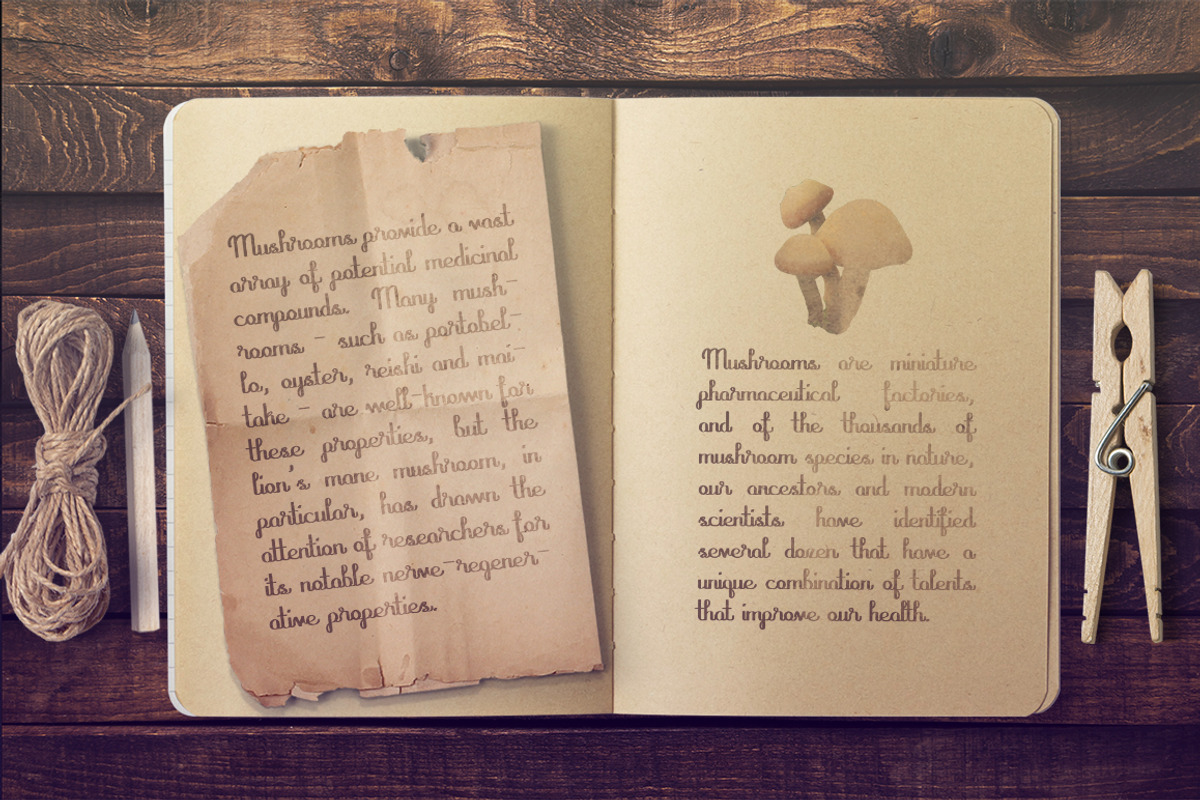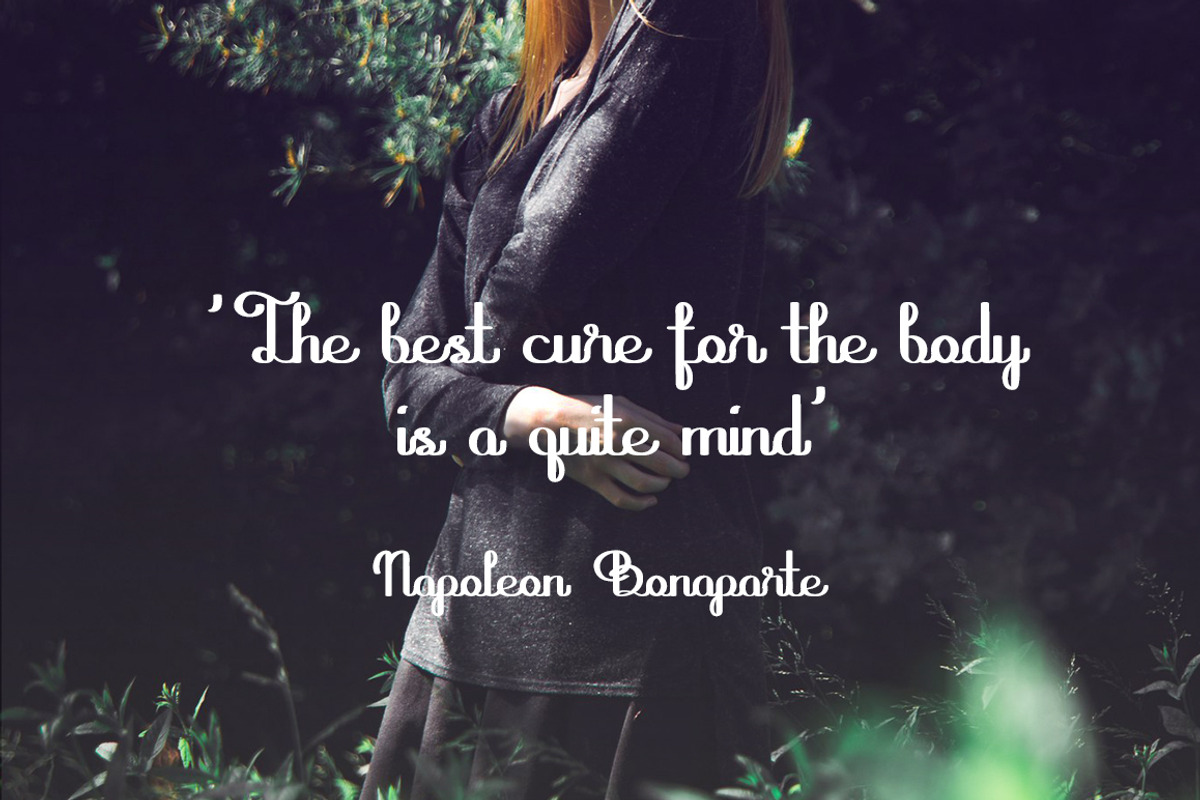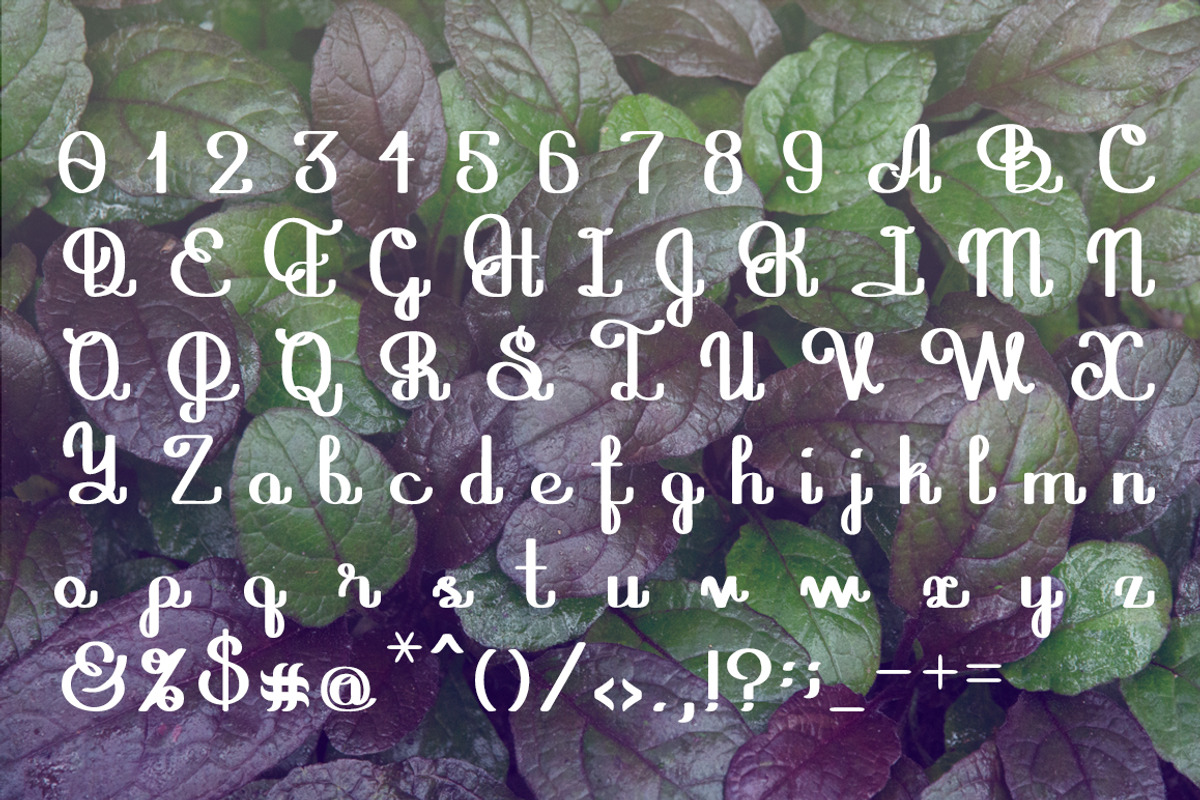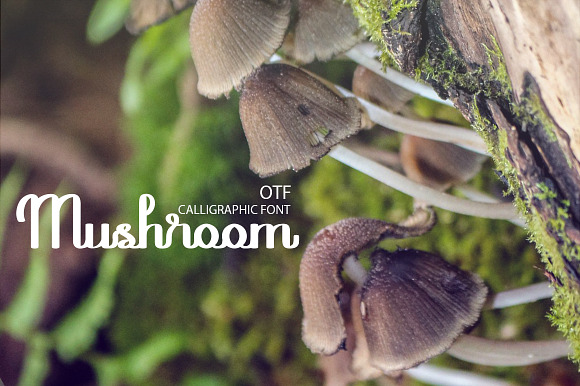
Mushroom font
Meet new pretty calligraphic font MUSHROOM!
Perfect for decorating web sites, prints, placards, labels, flyers, greeting cards, posters, product packaging or... any your idea))
Why Mushroom font is worth a look
Mushroom font by Ekaterina Glazkova fits naturally into Branding, posters, packaging, typography.